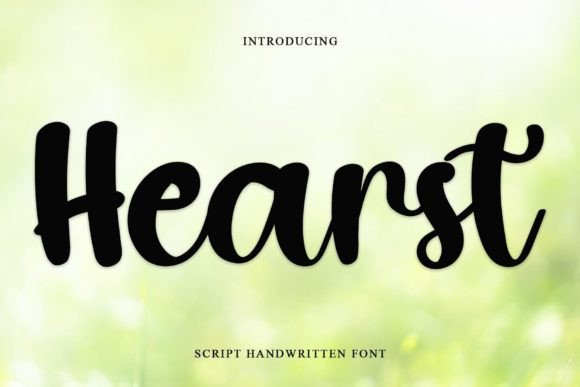
Step into the world of Hearst Font, a captivating script font family that will elevate your display ads to new heights. Created by the talented PiPi Creative, Hearst is a visual masterpiece that blends elegance with a modern touch. Its every letter exudes a distinct charm, inviting you on a journey of creativity and expression.
With Hearst, your display ads will captivate audiences with their unique style. Its meticulously crafted letters dance across the screen, leaving a lasting impression on viewers. Whether you're promoting a product, service, or event, Hearst ensures your message is delivered with the utmost impact.
Hearst's flexibility knows no bounds. Whether you're designing logos, posters, flyers, or social media graphics, this font family seamlessly adapts to your vision. Its versatility shines through, allowing you to create designs that resonate with your brand's personality.
But Hearst is more than just a pretty face. Its high legibility ensures that your words are easily read and understood, even on smaller screens. Every curve and stroke is meticulously designed to provide an optimal reading experience, ensuring your message hits home with clarity and precision.
Designers, rejoice! Hearst's intuitive design makes it a breeze to work with. Its clean lines and consistent letter spacing provide a solid foundation for your creative endeavors. Unleash your imagination and craft designs that leave a lasting impression.
And let's not forget about the emotional connection Hearst creates. Its graceful curves and delicate strokes evoke a sense of warmth and familiarity, drawing viewers deeper into your message. Tap into the power of emotions and forge an unbreakable bond with your audience.
In a world saturated with mundane fonts, Hearst stands out as a beacon of brilliance. It's the perfect choice for those seeking to make a statement, leave a lasting impression, and achieve marketing success.
Don't settle for ordinary. Embrace the extraordinary with Hearst Font. Let its timeless beauty elevate your display ads to new heights and unlock a world of creative possibilities. Experience the Hearst difference today!